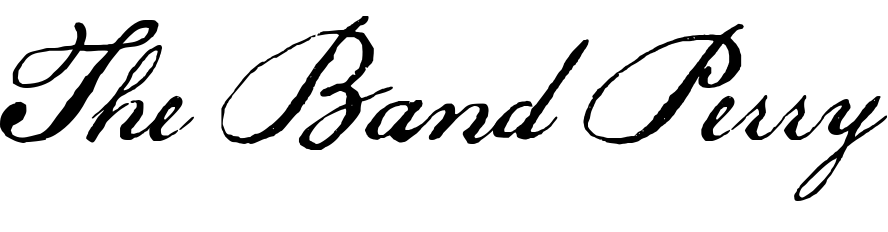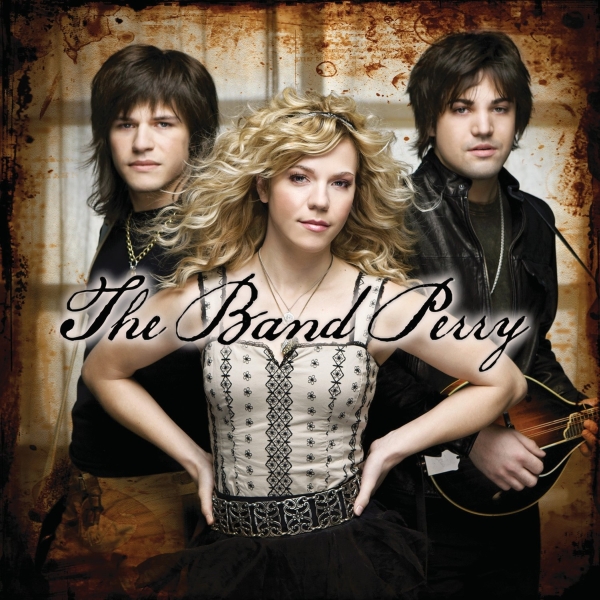
The Band Perry Font
The band name on the album features a script font called P22 Declaration Script, with a slightly irregular edge that has the look of classic 18th Century penmanship. You can view and buy the font here.